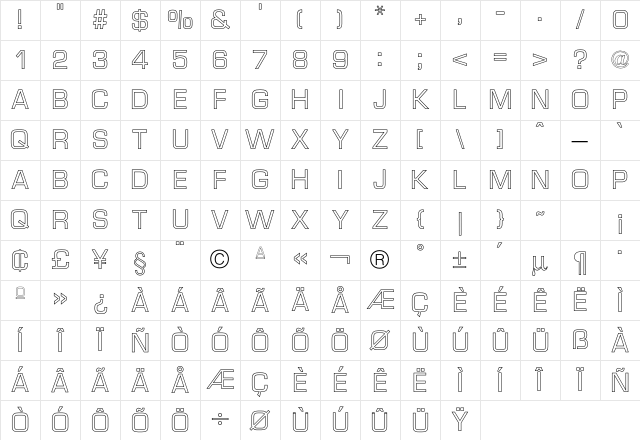
Complete Micro TechnicOutline glyph index. Displaying only characters natively supported by Micro TechnicOutline font.
Micro has a distinctly futuristic character, with geometric precision and clean angles that feel at home in technology, gaming, and sci-fi contexts.
Pro Tip: Try Micro with generous letter-spacing in UI labels and navigation - the geometric forms benefit from room to breathe.